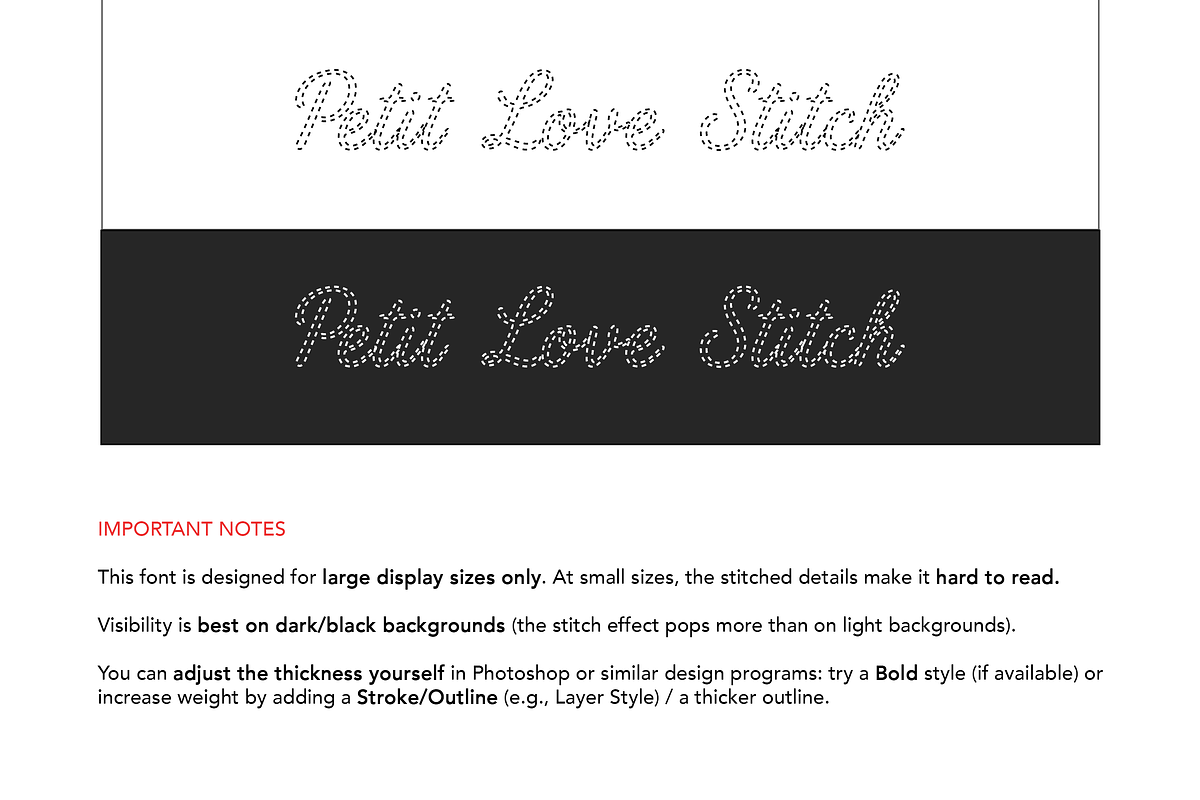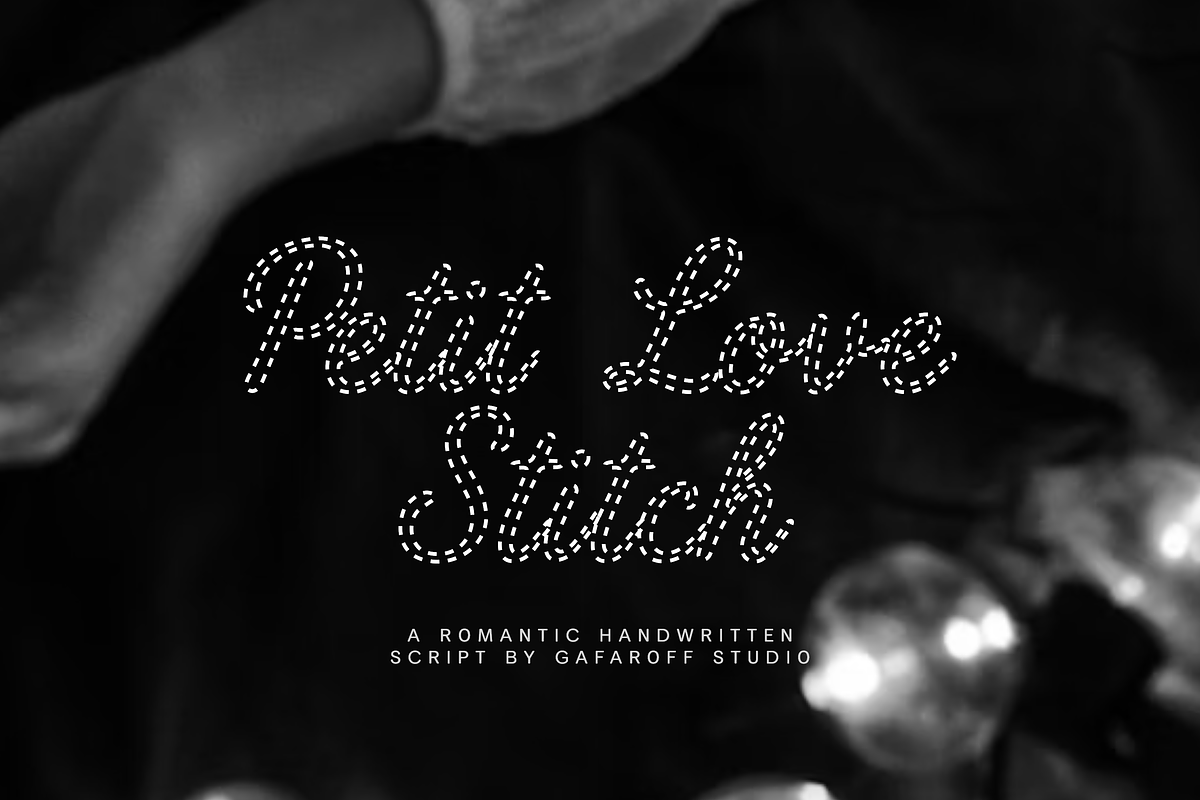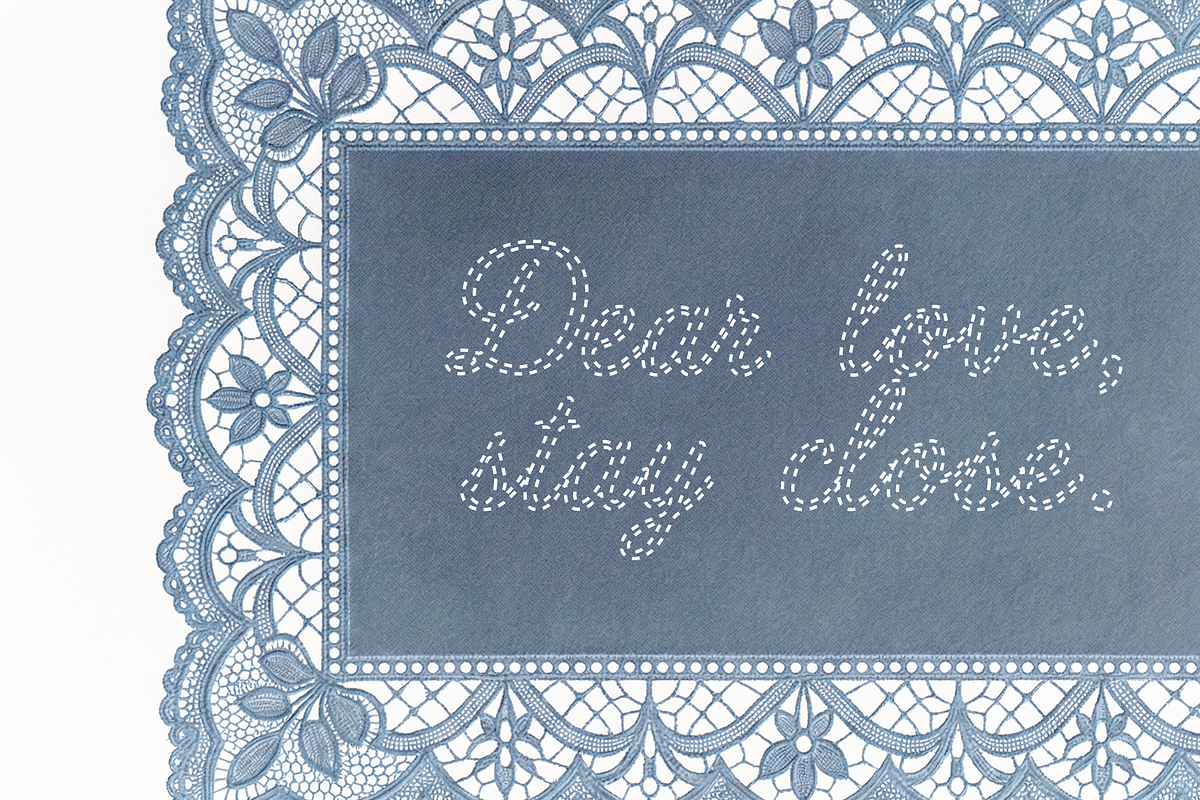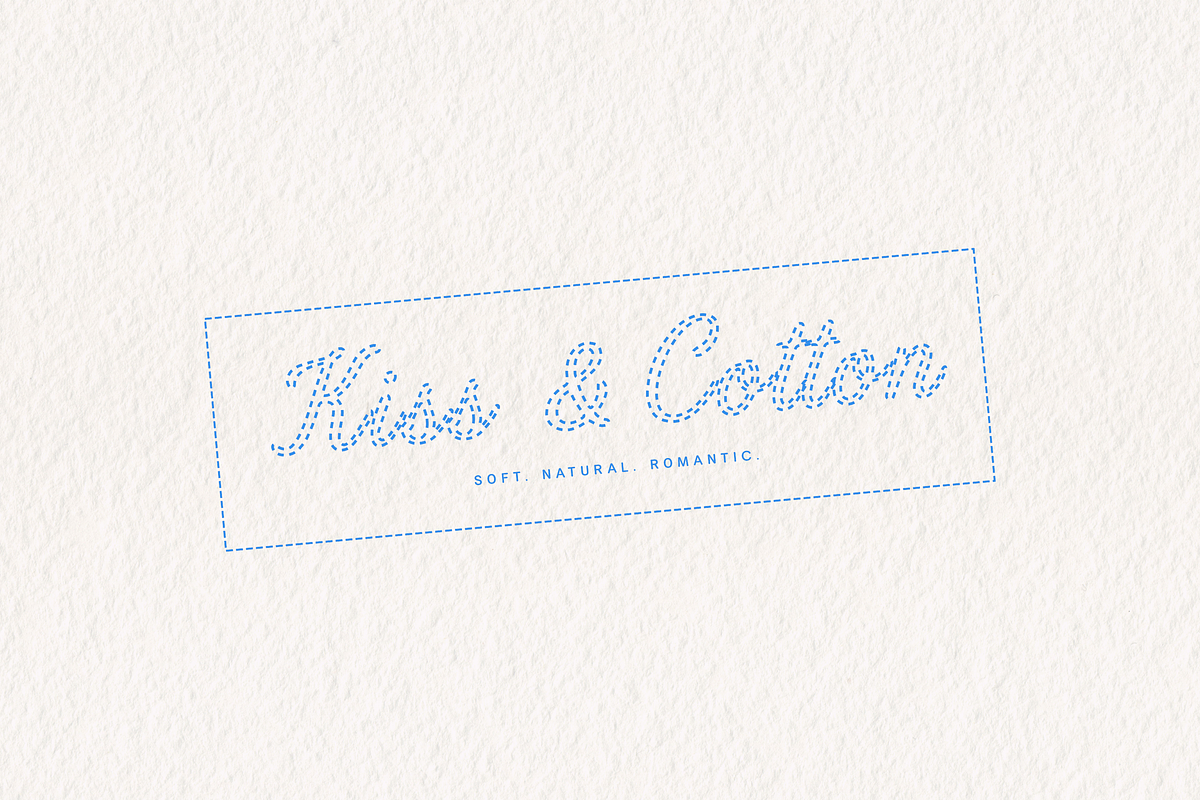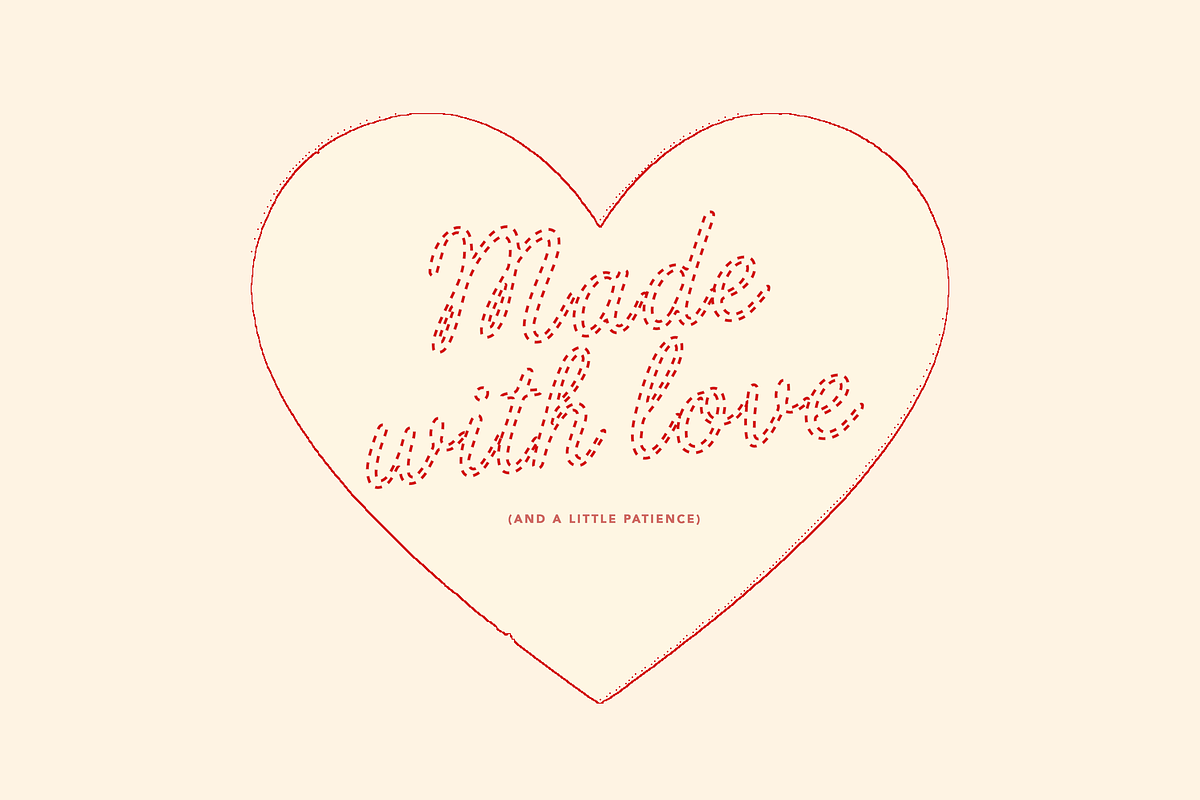
Petit Love Stitch Script
Petit Love Stitch is a romantic handwritten script with an embroidered stitch effect – like a love note sewn onto a vintage napkin.
- This font is designed for large display sizes only. At small sizes, the stitched details can be hard to read.
- Visibility is best on dark/black backgrounds (the stitch effect pops more than on light backgrounds).